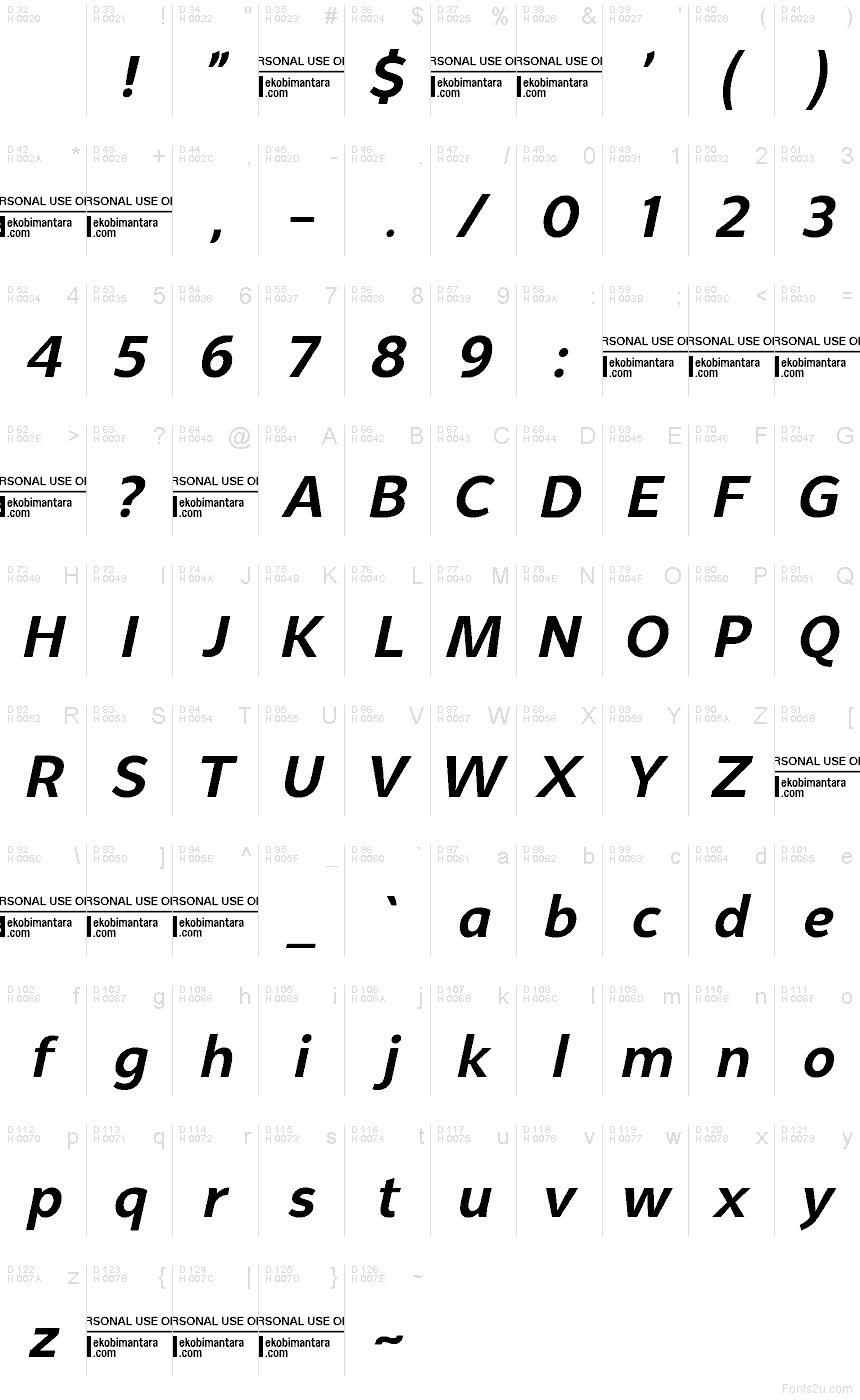
Syabil Trial Bold Italic
Syabil Bold Italic font by Eko Bimantara is a free italic sans serif font. Part of the Syabil family, it solves a classic problem: getting energetic emphasis without sacrificing warmth or legibility. Its confident forward slant, wide open counters, and soft, rounded terminals create motion that reads cleanly at a glance, while the sturdy strokes keep headlines from feeling shouty. The result is a bold italic that’s assertive, not abrasive.
Using Syabil Bold Italic, headlines snap to attention on branding wordmarks, product packaging, sports posters, app banners, magazine decks, and social ads. The rhythm is steady, spacing feels balanced, and the curvature adds a friendly, contemporary tone. This free font shines on large display sizes; pair it with Syabil Regular for body copy, and add a touch of letterspacing when setting smaller subheads.